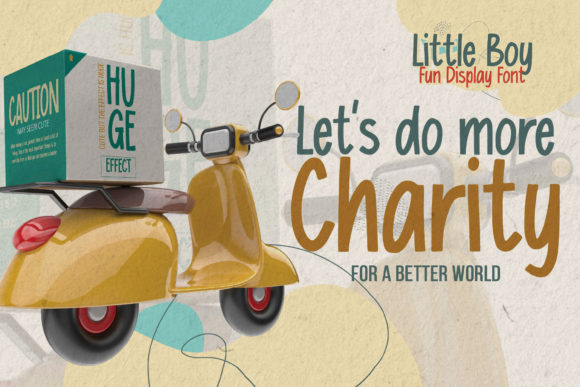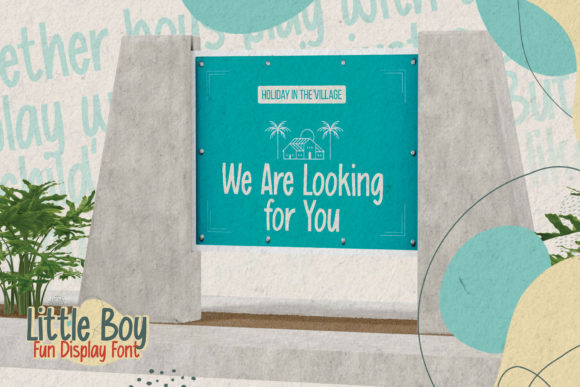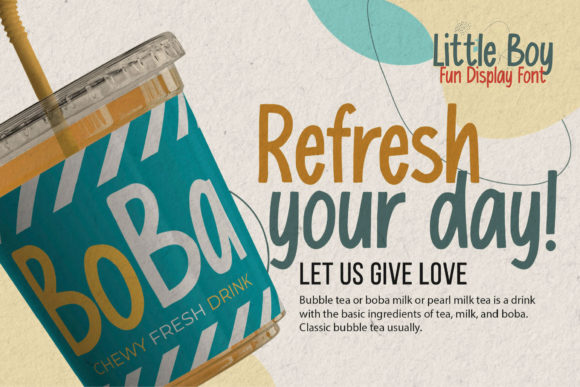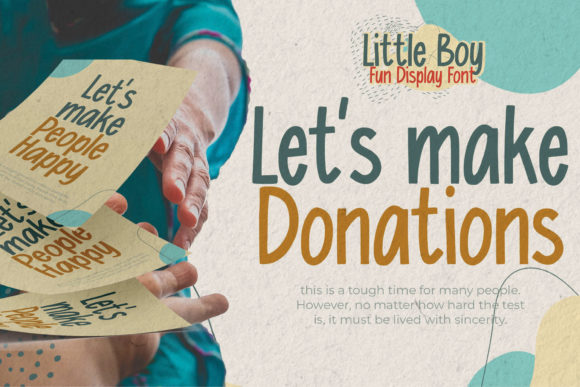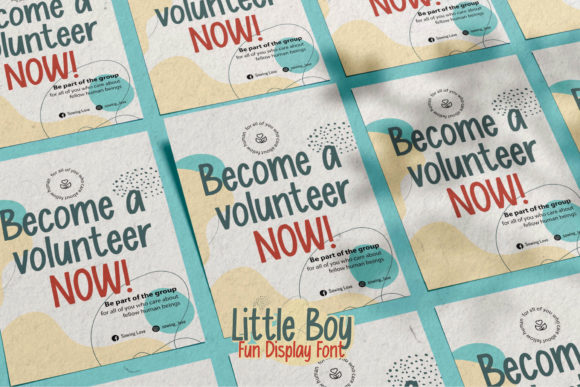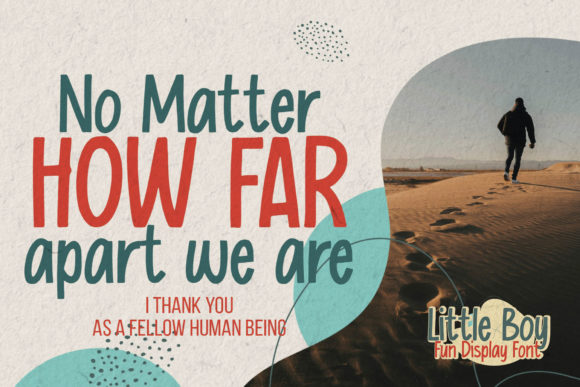
Introduction to Little Boy Font
Do you remember the feeling of excitement when you finally found the perfect font for a project? The one that makes your design stand out and brings your idea to life? That’s exactly what I’m about to introduce you to – the Little Boy Font.
This charming display font is a treasure trove of creativity, with its cute and crafty characters, natural texture, and high-quality design. Whether you’re looking for a free download with a transparent background or a versatile font that can be used for various creative projects, Little Boy Font is the perfect design resource for you.
With its hand-drawn feel and adorable style, Little Boy Font is a valuable addition to any designer’s toolkit, suitable for logos, branding, invitations, advertisements, and more. In this article, we’ll delve into the world of Little Boy Font and explore its many uses, making it an essential resource for any design project.
Key Features of Little Boy Font
- High-quality design: Little Boy Font is a carefully crafted typeface designed for creative projects that require a unique and eye-catching look.
- Unique and playful style: Little Boy Font features a distinctive and playful design, making it perfect for creative projects that require a touch of whimsy and personality.
- Perfect for design projects: This font is an excellent resource for designers working on children’s books, greeting cards, and other creative projects that require a fun and engaging look.
Honest Review: Little Boy Font
I recently stumbled upon the Little Boy Font, and I must say it’s a delightful discovery. This high-quality font is perfect for any creative project that requires a charming and playful touch.
- ✨ Unique and whimsical design that’s sure to add character to your project
- ⚠️ Limited font weights, which may not be ideal for projects requiring bold or italic text
- ⚠️ Not suitable for formal or professional projects, as it may come across as too playful
Overall, I’m quite impressed with the Little Boy Font. Its quirky charm and high-quality design make it a great addition to any design resource library. While it may not be perfect for every project, it’s definitely a valuable asset for designers working on creative and playful projects.
Some common use cases for the Little Boy Font include:
– Creating a logo for a children’s product or service
– Designing a birthday card or invitation
– Creating a social media graphic or post